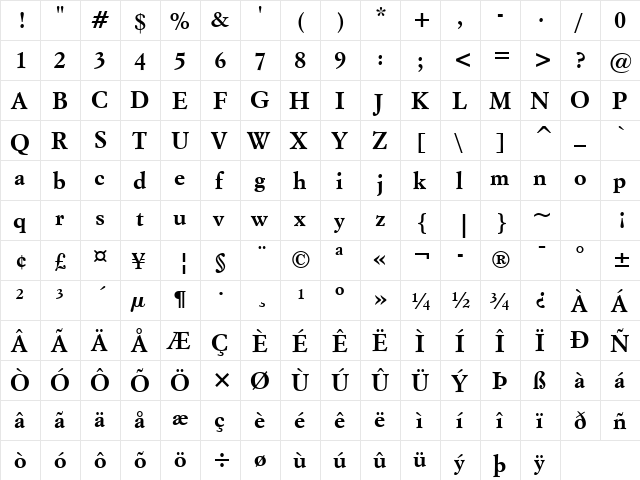
ItalianGarmnd BT Bold
Design Context for ItalianGarmnd BT Typeface
ItalianGarmnd BT takes a measured approach to typography — its balanced proportions and neutral character make it a reliable workhorse for both digital and print work. Its bold stroke weight gives it real presence on the page.